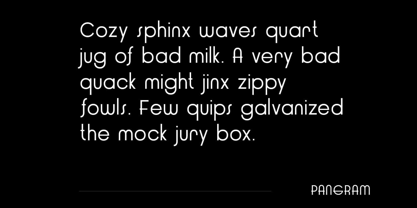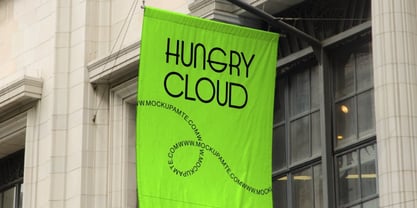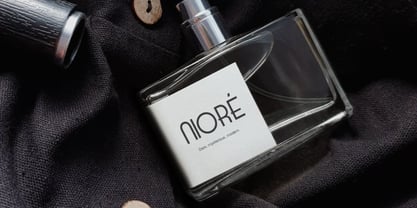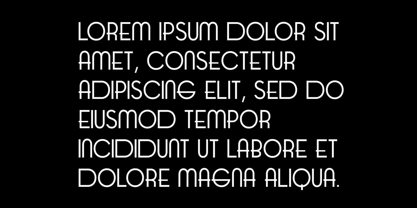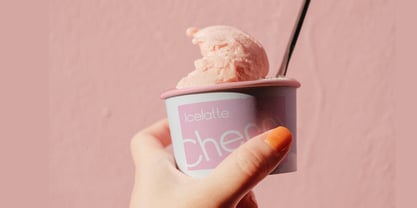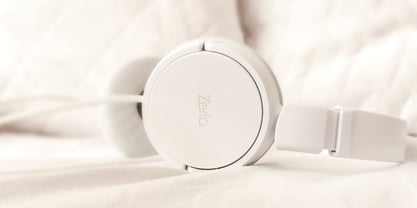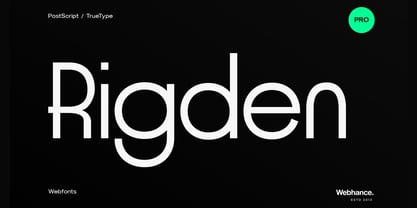
Rigden
Die Schriftfamilie Rigden wurde von Ancy George entworfen und von Webhance veröffentlicht. Rigden enthält 2 Stile und Familienpaketoptionen. Mehr über diese Familie
Rigden is a modern sans-serif typeface crafted for elegance, clarity, and timeless sophistication. With its smooth letterforms, balanced proportions, and subtle curves, Rigden is ideal for editorial design, fashion branding, luxury packaging, and stylish digital interfaces. Designed to reflect the grace and glamour of fashion culture, Rigden includes extended Latin support and a full set of accented characters (such as á, à, â, ä, é, è, ê, ë, and more), making it suitable for multilingual applications.
Designer: Ancy George